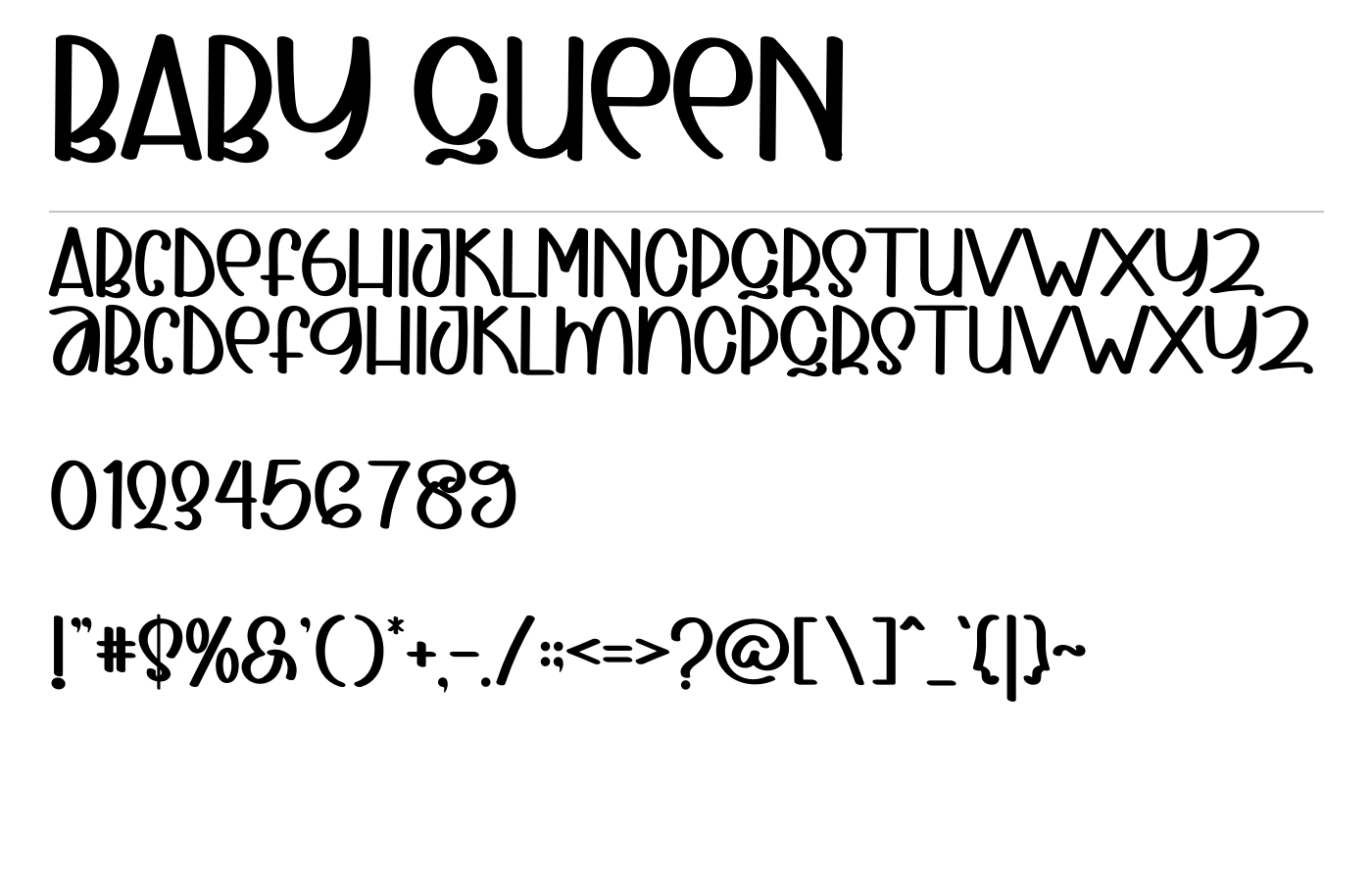
BABY QUEEN is a playful, quirky sans serif font with a hand-drawn feel, featuring tall, narrow letterforms and unique, decorative details like curled strokes and double-story characters. Its lively and informal style makes it perfect for fun branding, children's products, or creative projects needing personality and charm. This font shines in headlines, logos, and designs that want to stand out with a friendly, whimsical vibe.
BABY QUEEN Font
About BABY QUEEN Font